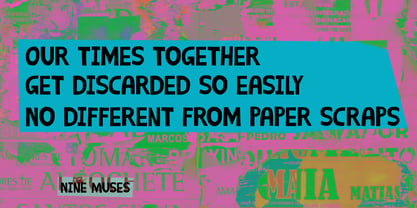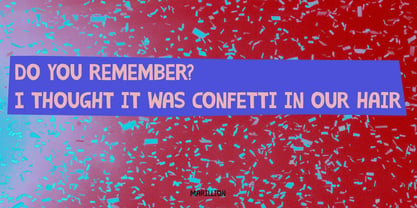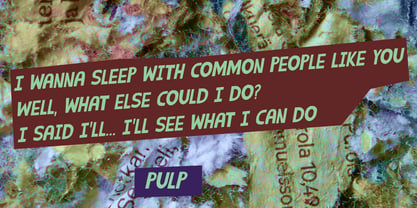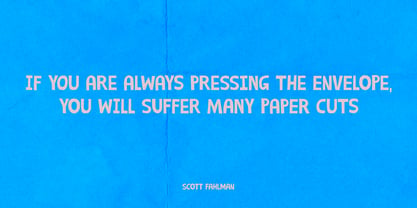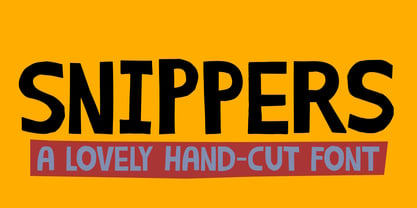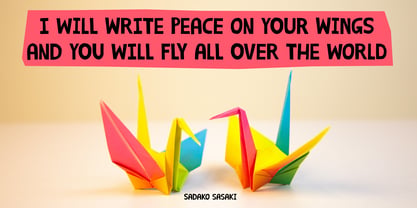
Snippers Pro
by Hanoded
Snippers is a Dutch word, meaning ‘scraps’. Usually it is used for paper scraps. It comes from the word ‘snippen’, which is an obsolete word meaning ‘to cut’. I like making cut-out fonts, but since it takes so much time and it leaves me with a lot of snippers, I don’t do it too often.
Snippers is (you’ve guessed it) a cut-out font. It is a little wobbly and worn, but that is what a cut-out fonts should look like imho.
Designers: David Kerkhoff
Foundry: Hanoded
About Hanoded
Hanoded is run by Dutchman David Kerkhoff. His fonts are a mishmash of styles, as he just creates whatever pops into his head. You will find a lot of brush fonts in his collection, as his favourite tools are brushes and Chinese ink, with cartoon style fonts and script fonts complementing his repertoire. Aside from making fonts, David occasionally guides tours in far-flung places, renovates his '30's house and tries reasoning with his wife and (teenage) kids. Not an easy task!